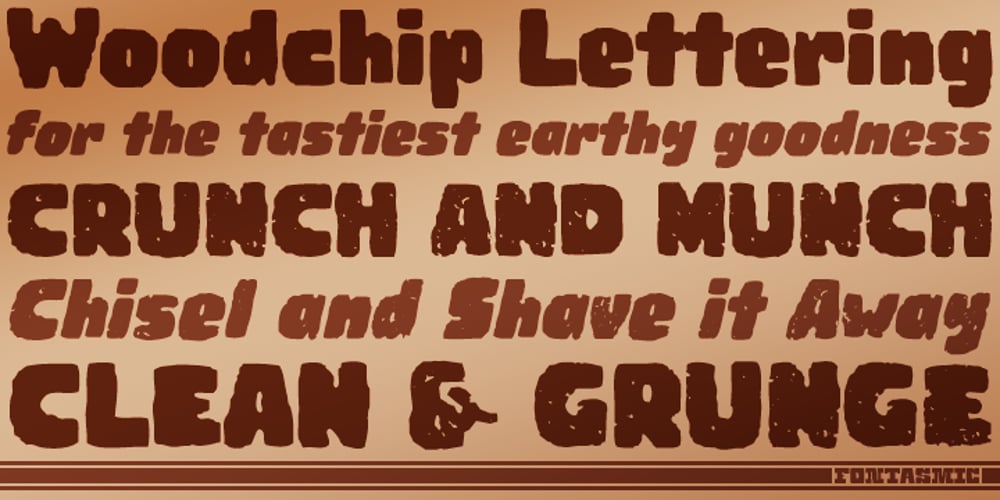
Woodchip Font Family was designed by Sawyer Hume and published by Fontasmic. Woodchip contains 4 styles and family package options. The Woodchip fonts are a collection of fun and edgy, worn and pitted, rough and crunchy typefaces. Styled to be comic & playful enough for children’s products, yet edgy enough to advertise a dirt bike/monster truck marathon and anything in between. Sink your teeth in. It’s suitable for some interesting titling and short bits of copy.